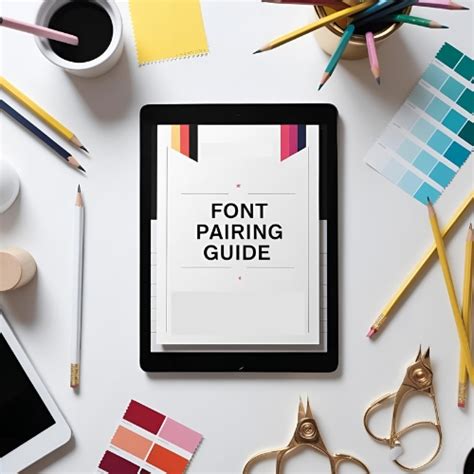
INewreader Font Pairing Guide
iNewreader Font Pairing: Making Your Content Shine
Hey guys! Ever feel like your content on iNewreader is just… blending in? You’ve poured your heart and soul into crafting awesome articles, but maybe the fonts are just not doing it for you. Well, buckle up, because we’re diving deep into the world of iNewreader font pairing ! Getting your typography right can be the secret sauce that makes your content pop, engaging readers and keeping them hooked. Think about it – we’re visual creatures, and the way text looks has a huge impact on how we perceive information. It affects readability, tone, and even the overall professionalism of your work. So, if you’re ready to level up your iNewreader game and make your articles unforgettable, you’ve come to the right place. We’ll explore why font pairing matters, how to choose the right fonts for your audience and content, and give you some killer combinations to get you started. Let’s get those words looking as good as they read!
Why Font Pairing is Your Secret Weapon
Alright, let’s talk about why font pairing is such a big deal, especially when you’re creating content for platforms like iNewreader. It’s not just about picking pretty fonts; it’s a strategic move that can seriously boost your engagement. Think of your fonts as the outfit your words are wearing. Are they dressed for success, looking sharp and inviting, or are they looking a bit sloppy and unapproachable? The right font pairing creates a visual hierarchy, guiding your reader’s eye through the content. This means making your headlines stand out, your subheadings guide them to new sections, and your body text remain super readable for those long, in-depth articles. When you nail your font pairing, you create a more enjoyable reading experience. Imagine trying to read a dense block of text in a super quirky, hard-to-read font – not fun, right? Conversely, well-chosen fonts can evoke specific emotions and set the tone for your entire piece. A classic serif font might lend an air of authority and tradition, perfect for historical pieces or academic articles. On the other hand, a clean, modern sans-serif can feel fresh, energetic, and approachable, ideal for tech blogs or lifestyle content. iNewreader font pairing is all about creating this seamless flow, this visual harmony that draws readers in and makes them want to keep reading. It’s about making your content look professional, credible, and utterly captivating. Plus, consistent and well-thought-out typography builds brand recognition. If readers consistently see your articles looking polished and aesthetically pleasing, they’ll start to associate that quality with you . So, don’t underestimate the power of fonts, guys! They are fundamental to effective communication and a crucial element in making your iNewreader content stand out from the crowd. It’s a subtle art, but the impact is anything but subtle.
The Foundation: Understanding Font Types
Before we jump into mixing and matching, it’s super important to get a handle on the basic types of fonts out there. This is the bedrock of successful iNewreader font pairing , so let’s break it down. We’ve got the big players: Serifs , Sans-Serifs , Slabs , Scripts , and Monospace fonts. Understanding their characteristics will help you make smarter choices.
• Serifs: These are your classic, traditional fonts. Think Times New Roman or Georgia. You know those little feet or decorative strokes at the end of the letters? Those are serifs! They’re great for body text because those little strokes can help guide the eye along the line, making long passages easier to read. They often convey a sense of elegance, authority, and trustworthiness. Perfect for more formal content, literature, or anything that needs to feel established and credible.
• Sans-Serifs: Sans means ‘without’ in French, so these fonts are without those little feet. Think Arial, Helvetica, or Open Sans. They’re clean, modern, and super versatile. Sans-serifs are fantastic for headlines, digital interfaces, and body text on screens because they tend to be very legible, especially at smaller sizes. They convey a sense of modernity, simplicity, and directness. They’re the go-to for a lot of web content because they feel clean and unfussy.
• Slab Serifs: These are like the bold cousins of serif fonts. They have thick, block-like serifs, almost like slabs. Think Rockwell or Roboto Slab. They’re strong, sturdy, and can add a bit of personality without being overly fancy. Slab serifs can be great for headlines or short bursts of text where you want impact and a slightly retro or industrial feel.
• Scripts: These fonts mimic handwriting or calligraphy. Think of elegant wedding invitations or fancy signatures. They can be beautiful and highly expressive, but they’re often not great for body text because they can be hard to read in long stretches. Use them sparingly for decorative elements, short titles, or to add a touch of personal flair.
• Monospace: Every character in a monospace font takes up the same amount of horizontal space, just like on a typewriter. Think Courier New. They’re often used for coding or to give a technical or retro feel. While not typically used for general article content, they have their niche uses.
Knowing these types is your first step to successful iNewreader font pairing . You’ll start to see how different fonts evoke different feelings and serve different purposes. It’s all about picking the right tool for the job, and understanding these basics gives you the power to do just that. So, familiarize yourself with these categories, and you’ll be well on your way to creating visually stunning content!
Crafting Killer Font Pairings for iNewreader
Now that we’ve got the lowdown on font types, let’s get to the fun part: actually creating those killer iNewreader font pairings ! The golden rule here is CONTRAST. You want your fonts to complement each other, not clash. Pairing two very similar fonts often leads to a monotonous look, where the reader can’t tell where one element ends and another begins. Instead, aim for combinations that have distinct personalities but still feel harmonious. The most common and effective strategy is pairing a serif with a sans-serif. This creates a clear distinction between your headline (often a bold sans-serif for impact) and your body text (a readable serif for comfort), or vice versa. Think of it as a dynamic duo: one grabs attention, the other keeps them reading comfortably. When selecting fonts, always consider your content’s tone and your target audience. Are you writing a serious historical piece? Maybe pair a strong slab serif headline with a classic serif body. Is it a lighthearted lifestyle blog? A playful sans-serif headline with a clean, readable sans-serif body could work wonders. iNewreader font pairing is also about hierarchy. Use font weight (bold, regular, light), size, and style (italic) to differentiate headlines, subheadings, and body text. A common approach is to use a more decorative or impactful font for your main title and a highly legible, simpler font for the rest. Avoid using too many different fonts – stick to two, maybe three at most, for a cohesive look. Overdoing it can make your content look messy and unprofessional. Remember, the goal is to enhance readability and guide the reader, not distract them. Experimentation is key! Don’t be afraid to try different combinations. Use online font pairing tools or simply play around within iNewreader’s editing options. Look at websites and publications you admire – what font combinations do they use? Analyze why they work. Successful iNewreader font pairing comes down to understanding contrast, considering your content’s message, and creating a visually pleasing and easy-to-read experience for your audience. It’s about making every word count, both in meaning and in appearance!
Classic Combinations That Always Work
Alright, let’s talk about some tried-and-true iNewreader font pairing strategies that are pretty much foolproof. These are the combinations that have stood the test of time because they just work . They offer that perfect blend of contrast and harmony, making your content look professional and super readable. If you’re feeling overwhelmed and just want a solid starting point, these are your go-to guys.
1. The Serif Headline, Sans-Serif Body: This is a classic for a reason. Imagine a strong, bold sans-serif like Montserrat Bold or Lato Black for your main headline. It grabs attention immediately – clean, modern, and impactful. Then, for your body text, you switch to a highly readable serif like Merriweather or Garamond . The serifs offer a comforting, traditional feel that’s easy on the eyes for longer reads. This pairing is fantastic for articles that need to feel authoritative yet accessible, like news articles, essays, or in-depth analyses.
Conclusion: Elevate Your iNewreader Content
So there you have it, guys! We’ve journeyed through the essential world of iNewreader font pairing , understanding why it’s crucial, exploring different font types, and uncovering both classic and creative combinations. Remember, your choice of fonts is more than just decoration; it’s a fundamental part of your content’s communication strategy. The right iNewreader font pairing can significantly boost readability, set the perfect tone, establish credibility, and ultimately, keep your readers engaged and coming back for more. By applying the principles of contrast, understanding your audience, and prioritizing legibility, you can transform your articles from ordinary to extraordinary. Don’t be afraid to experiment, test your combinations, and find what truly resonates with your content and your readers. Mastering font pairing is an ongoing process, but the payoff – content that looks as good as it reads – is absolutely worth it. Now go forth and make your iNewreader content shine!